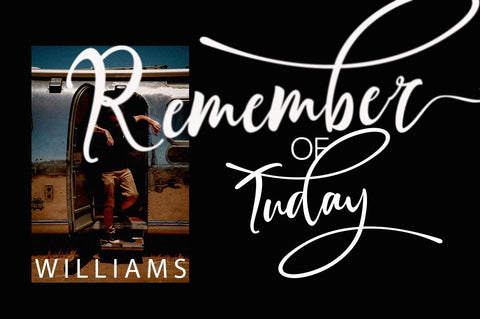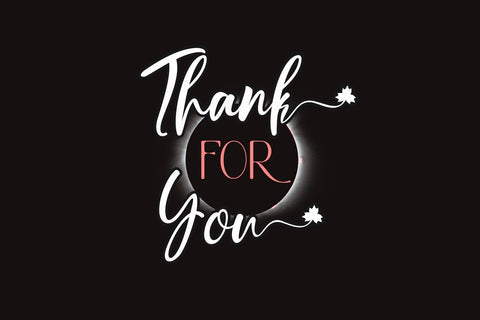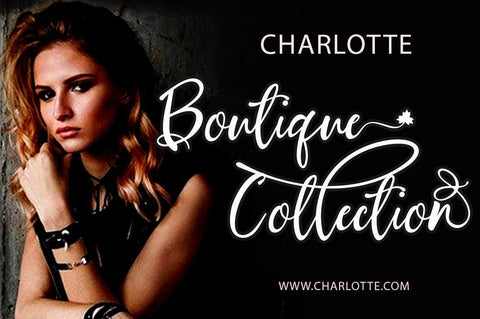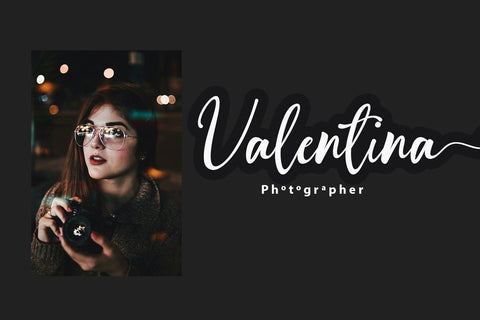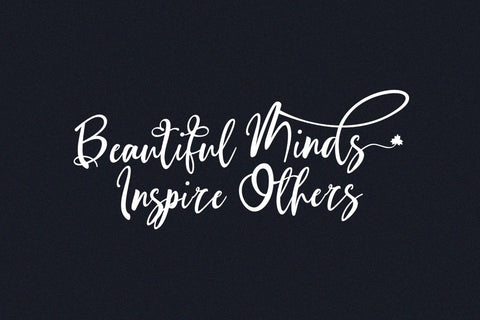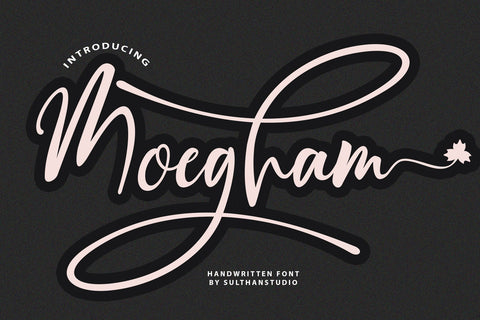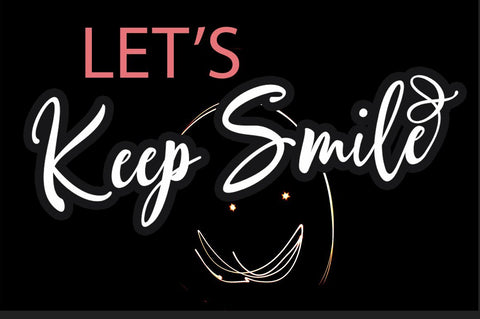
Moegham - Script Handwritten font
Moegham - Script Handwritten font that is both freestyle and also charming
This font is perfect for quotes, shirt designs, websites, branding,designs, blogs, logos, invitations and more!